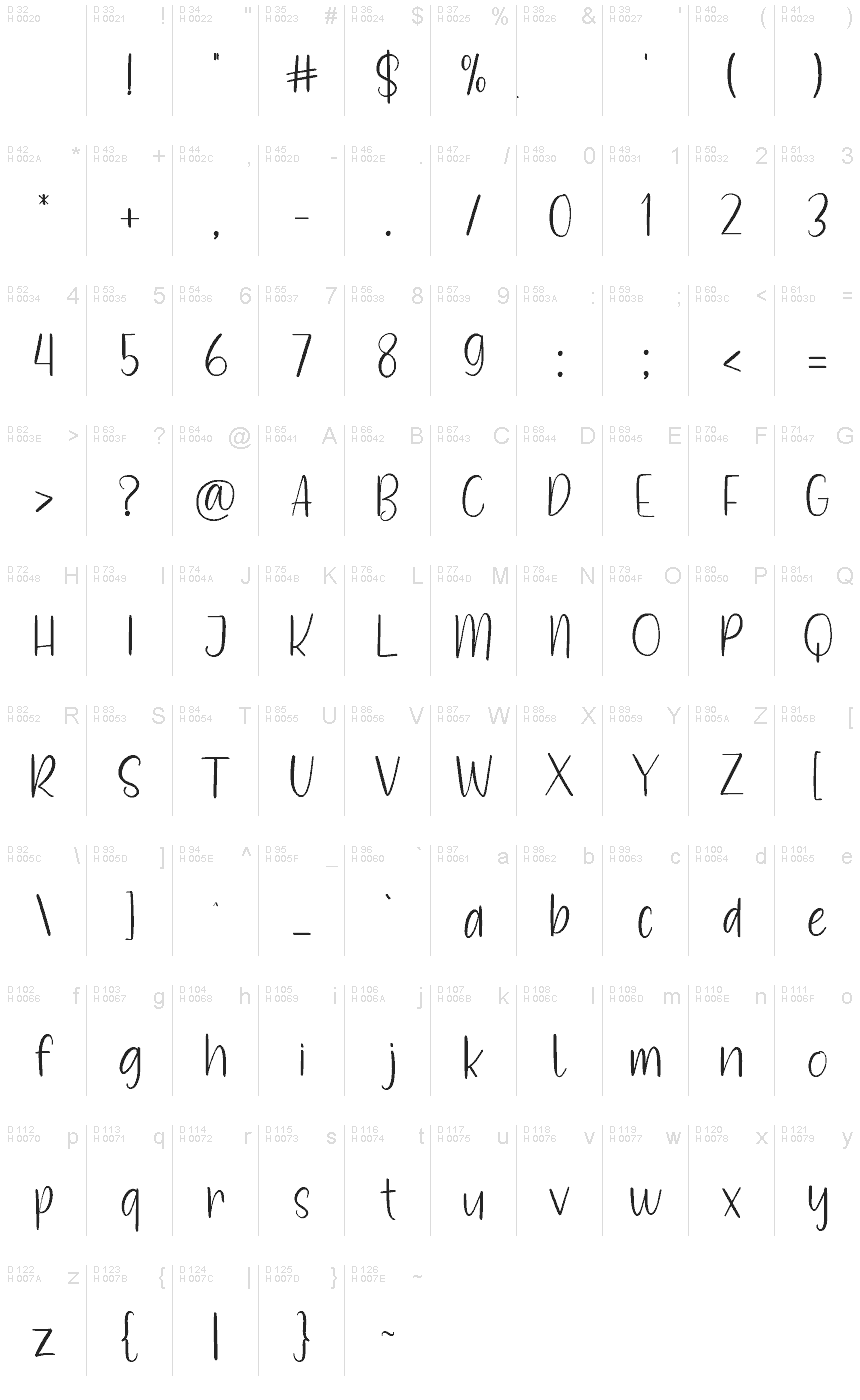
Feminism
Feminism font, designed by Goodrichees, presents a brush-like texture with an organic flow and modern casual feel. This free handwritten font carries an artistic flair, making its appearance stylish and lively.